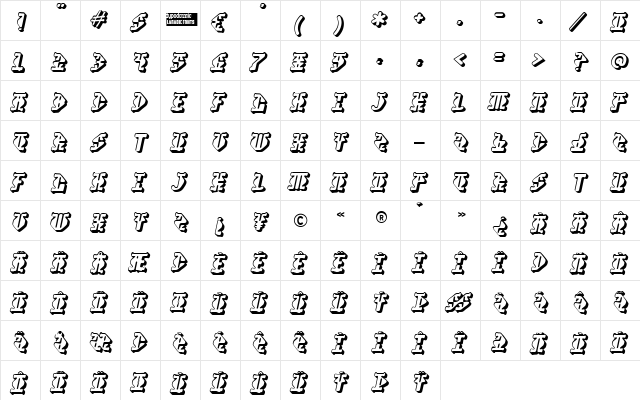
Stupefaction 3D Regular
Design Context for Stupefaction 3D Typeface
Stupefaction 3D is a composed and adaptable typeface that performs quietly and consistently across a wide range of design contexts.